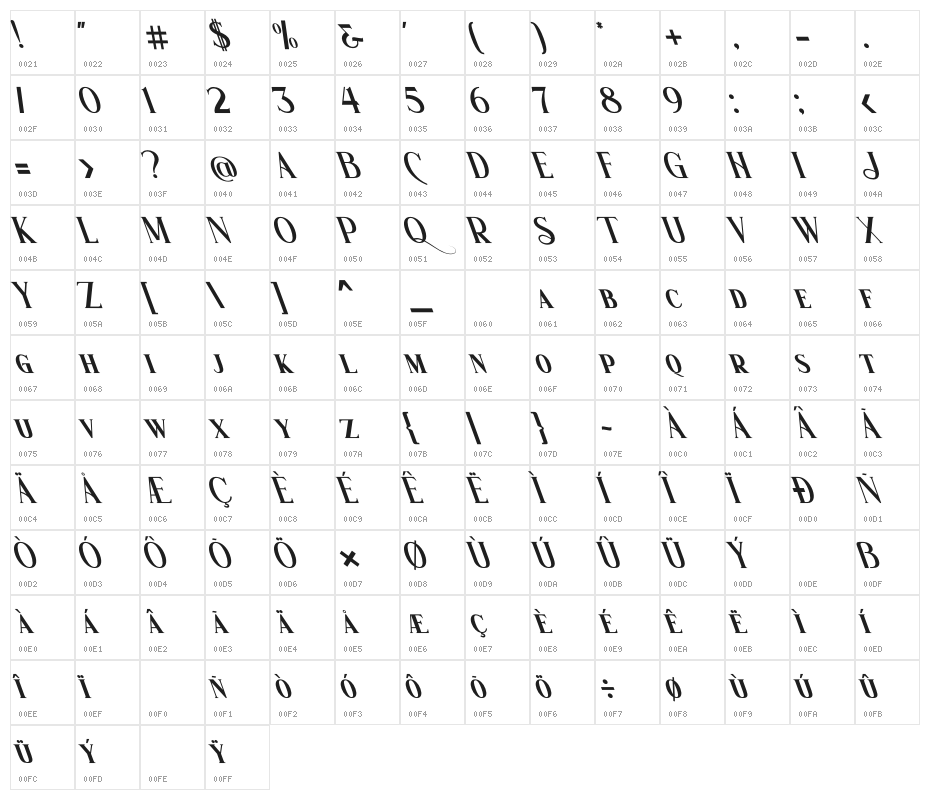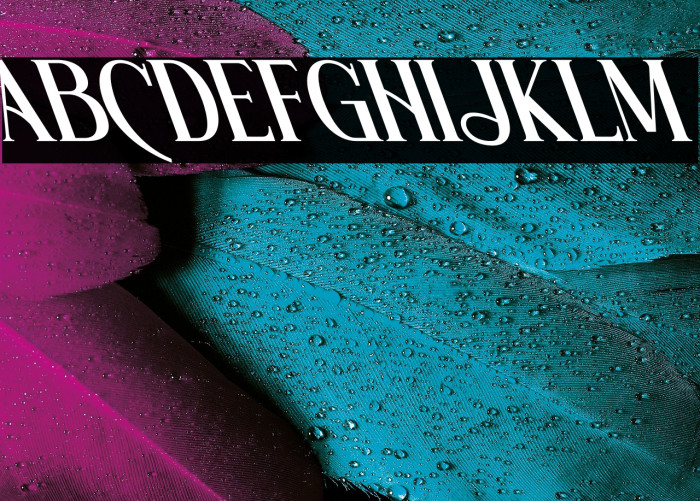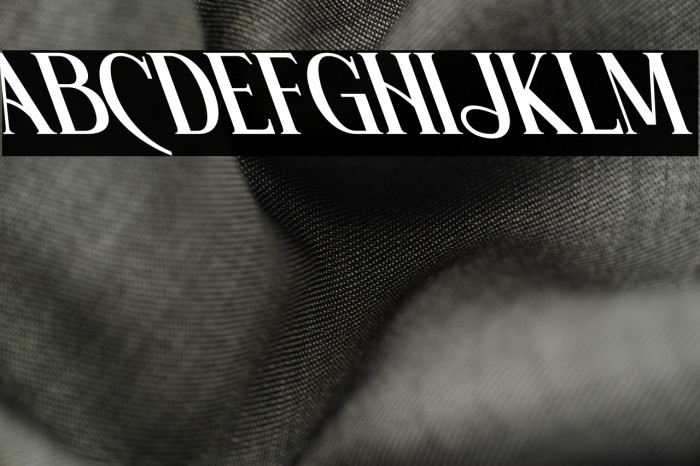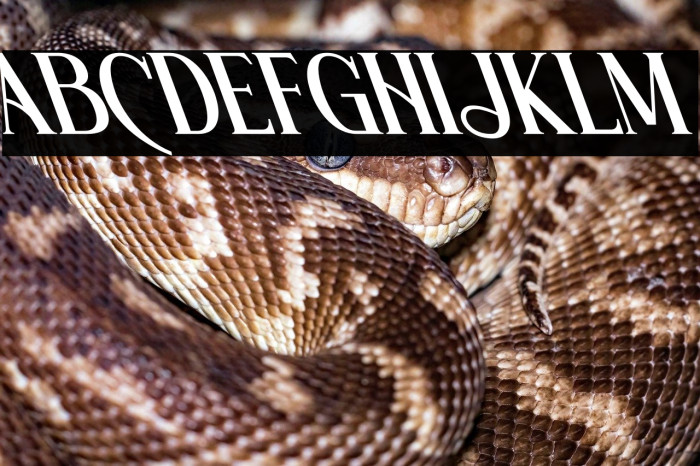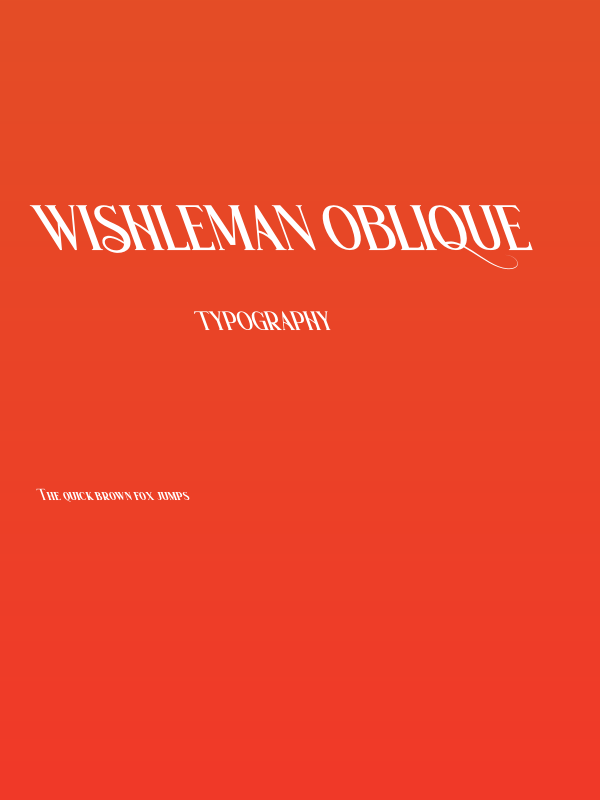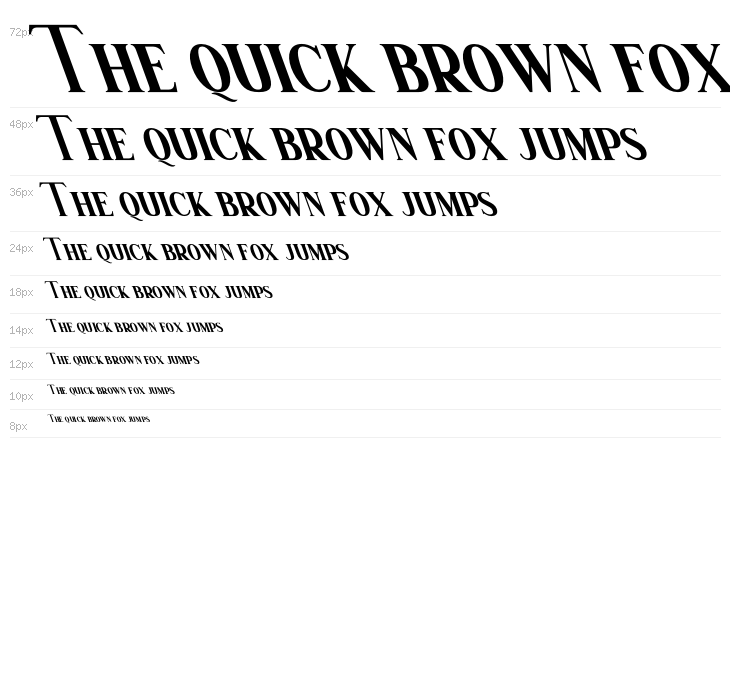
Wishleman Oblique Font
Wishleman Oblique Description
This font features a dynamic and elegant oblique style, characterized by its slanted and flowing letterforms. The strokes are bold and confident, with a high contrast between thick and thin lines, giving it a sophisticated and stylish appearance. The uppercase letters are particularly striking, with sharp serifs and a sense of movement. The lowercase letters maintain the same elegance, with a slightly condensed form that enhances readability. Numbers and special characters are designed to match the overall aesthetic, ensuring consistency across all glyphs. This font is ideal for making a bold statement while maintaining a touch of class.